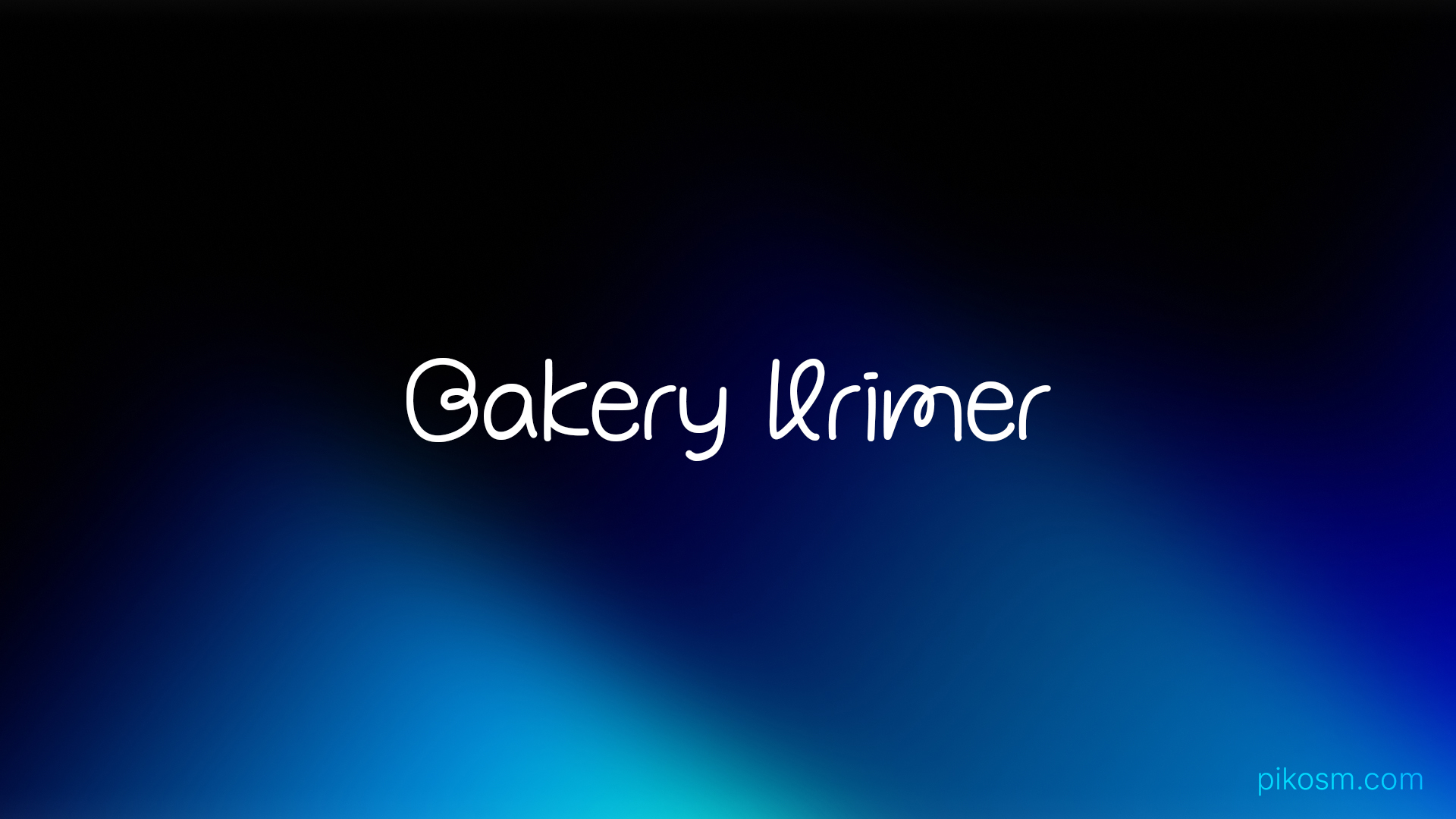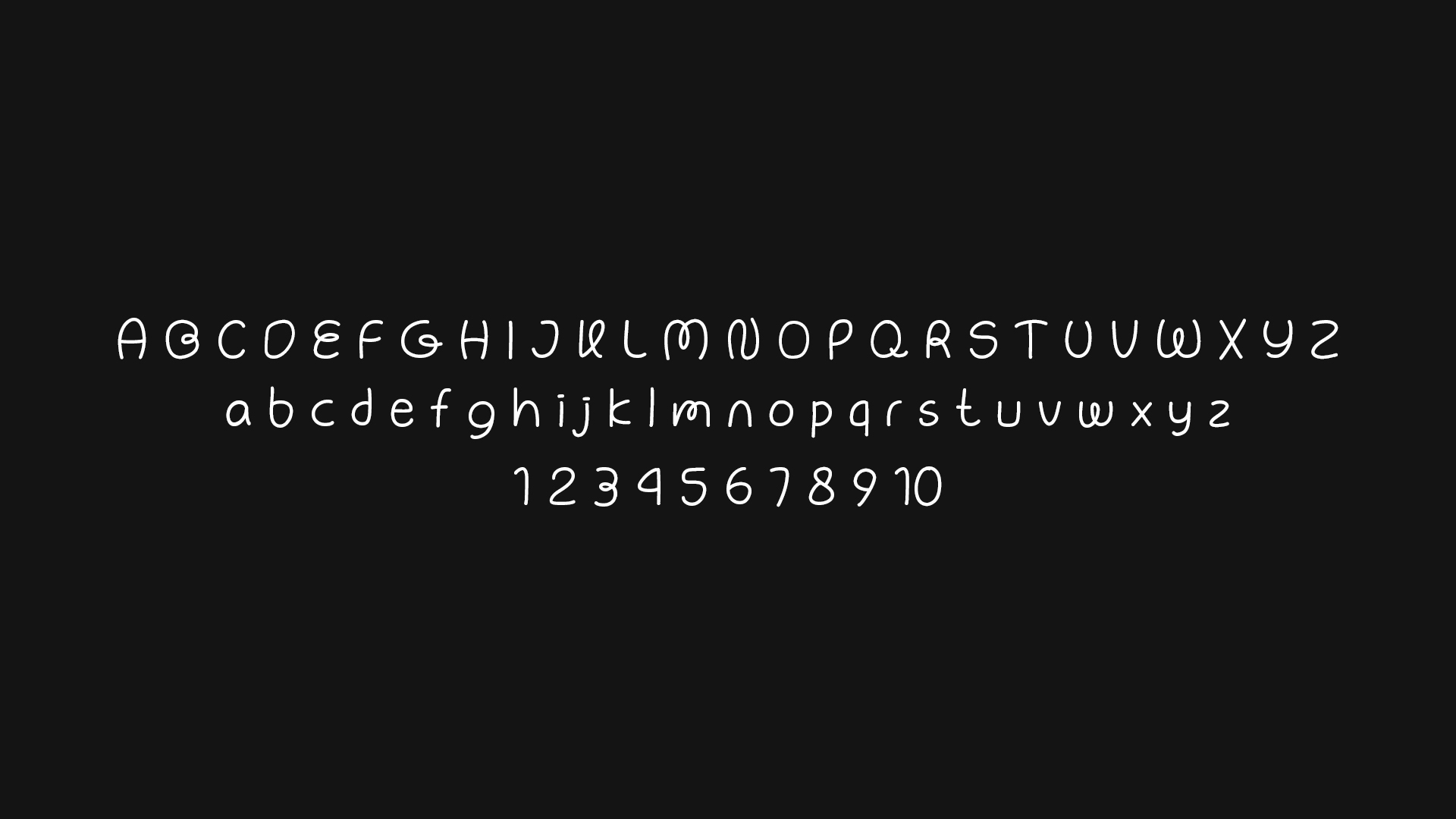
Bakery Krimer Script Font
Bakery Krimer is a modern script font with a handmade bakery style. Perfect for logos, branding, packaging, social media, and creative design projects.
• Uppercase and lowercase letters
• Numbers and punctuation
• Multilingual language support